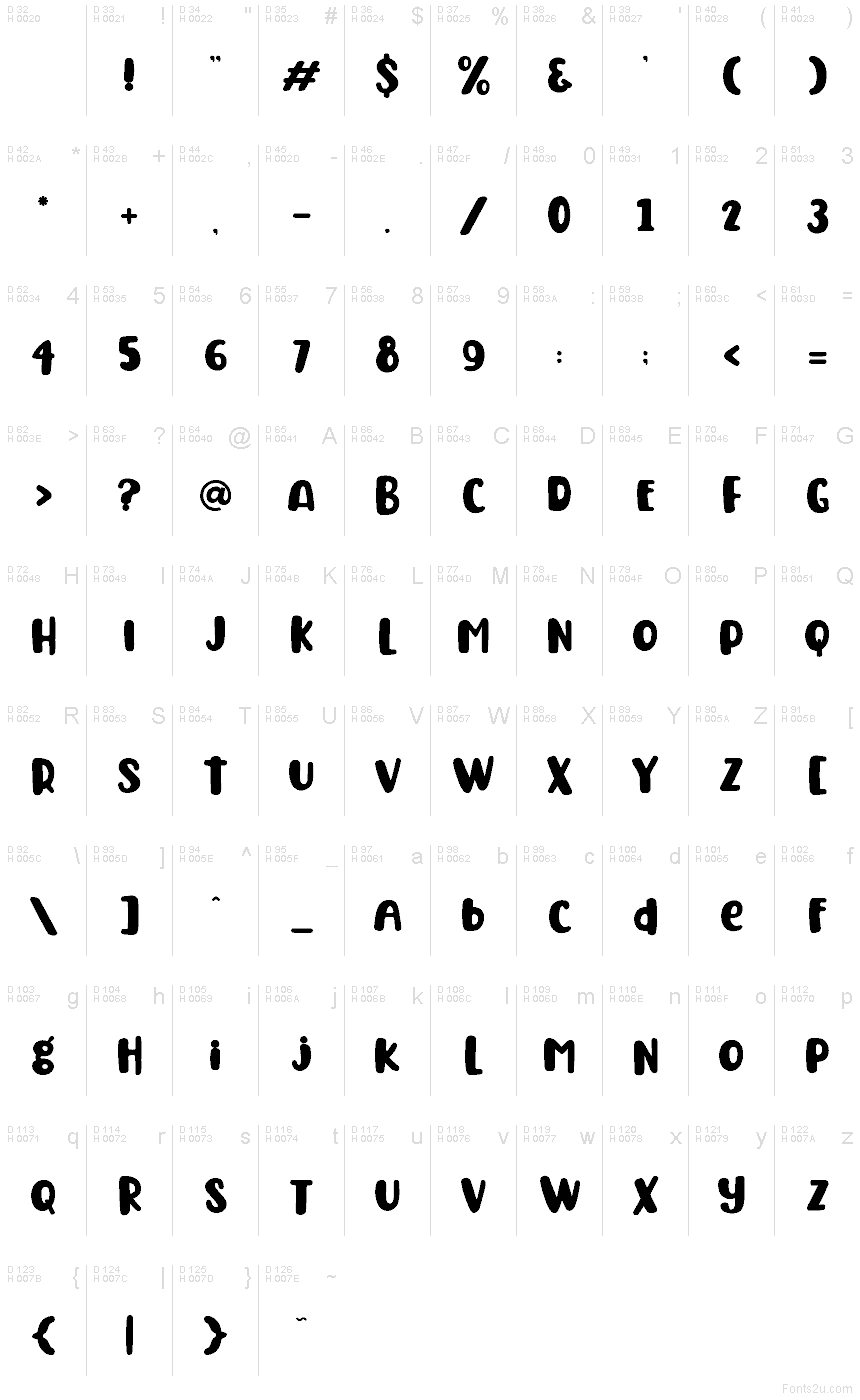
Thanksgiving Joy font from PutraCetol Studio is a bold, bubbly script with a playful yet elegant style. The round letter shapes channel positivity through smooth character lines that are casual yet attractive. Cheerful and highly legible, this free handwritten font is best used in lighthearted design contexts that require a visual element of fun and whimsicality.
Use Thanksgiving Joy in invitation cards, greeting cards, business cards, UI/UX designs, website headings and body text, labels for food-packaging or general packaging items where trendy fonts will be useful. Use it also in marketing material for joyful brands like banners & posters for print or online publishing.
Thanksgiving Joy